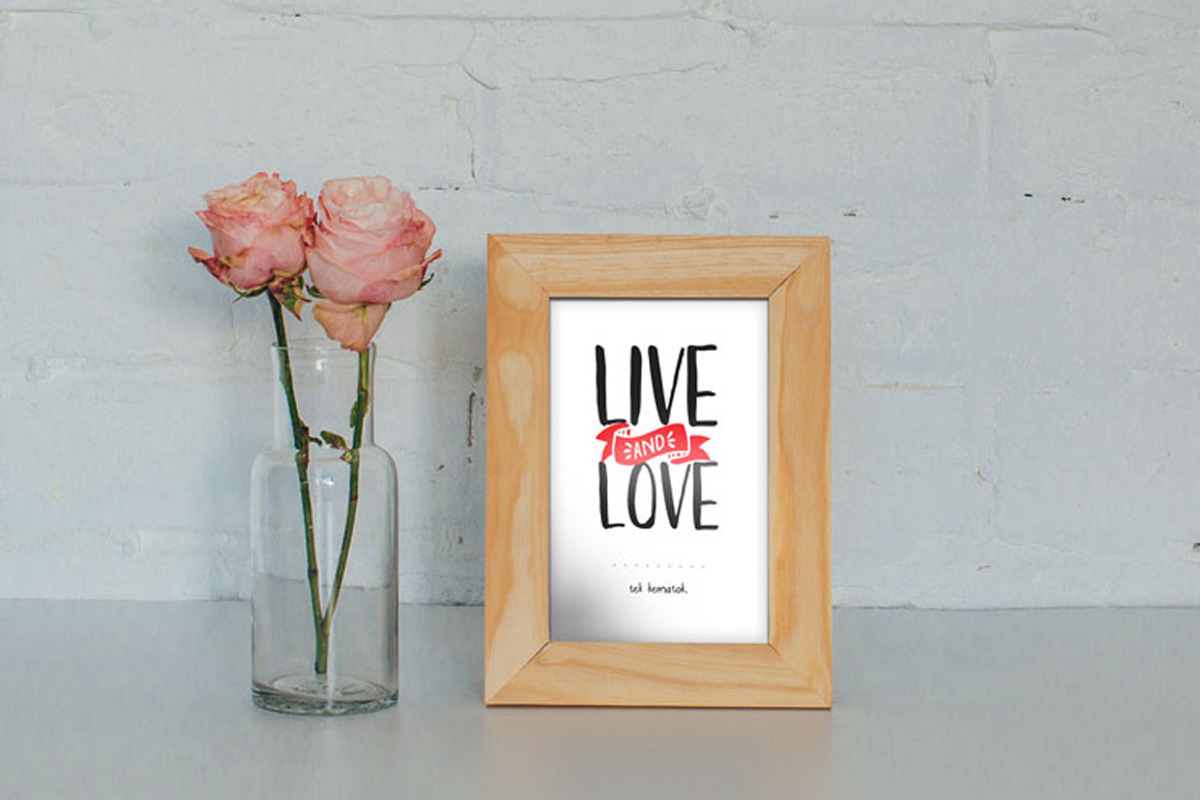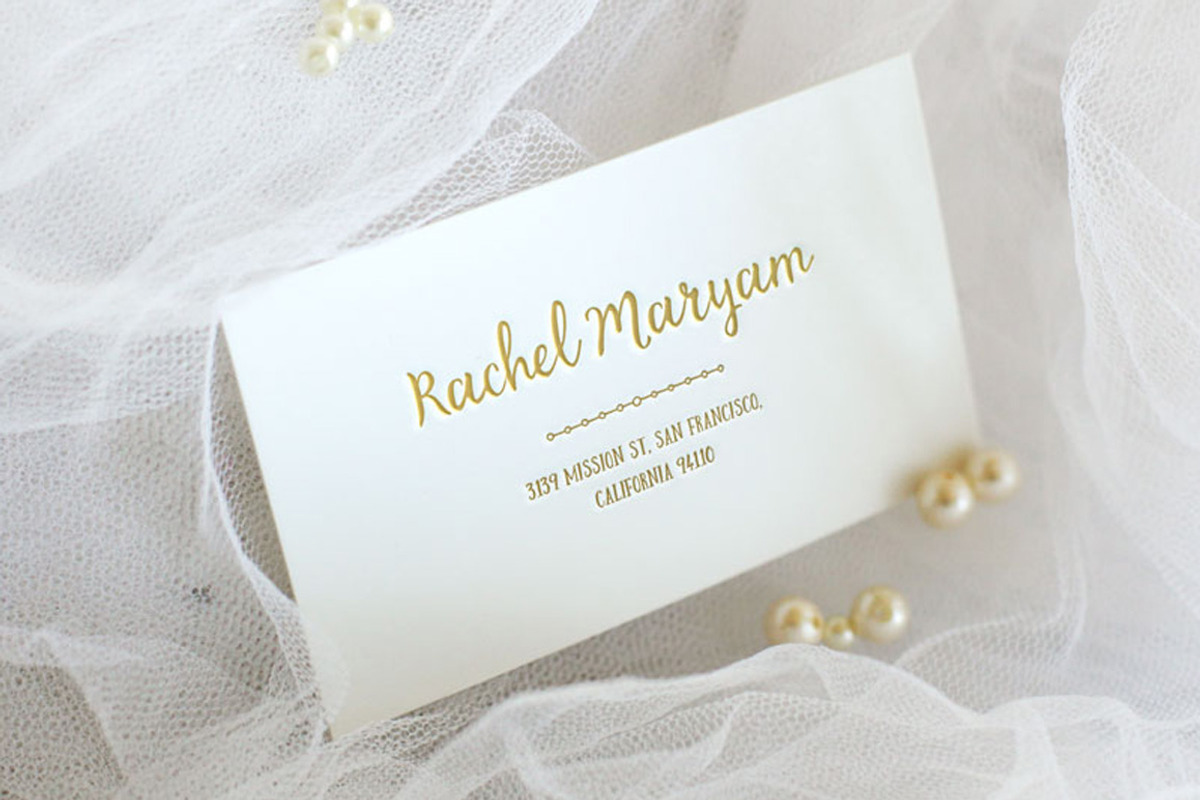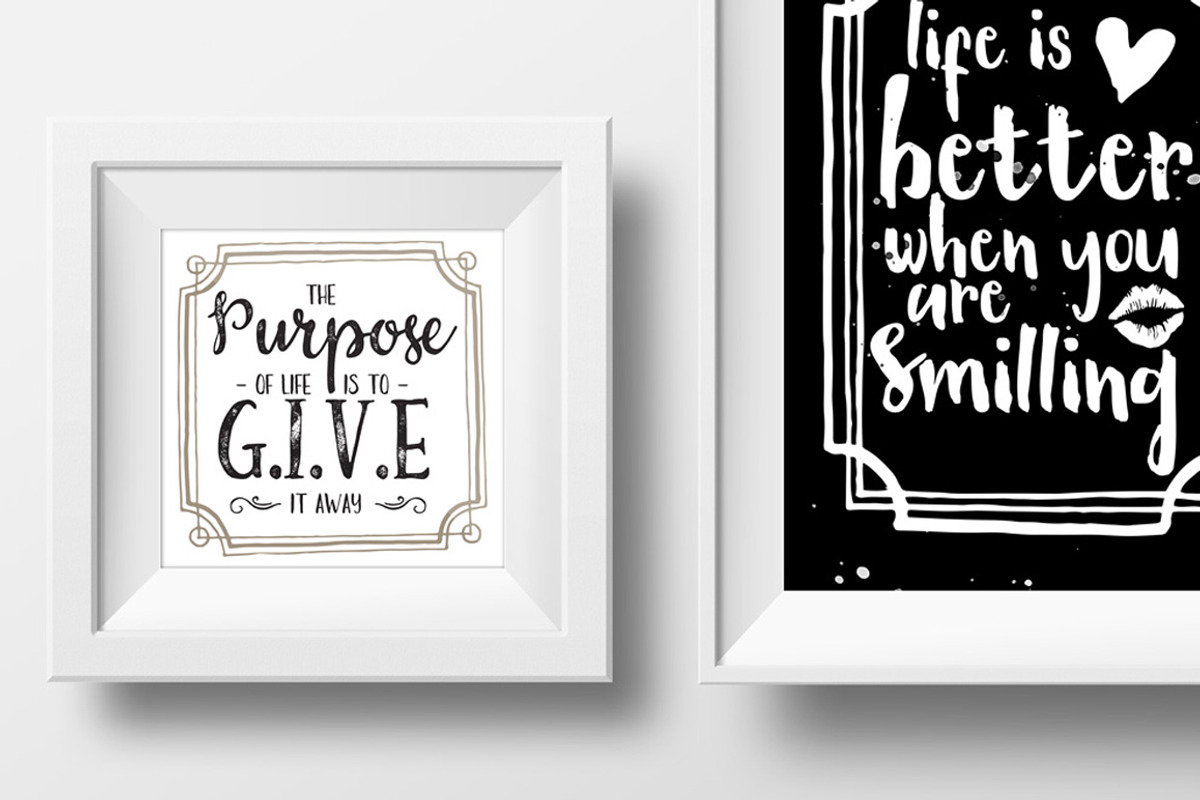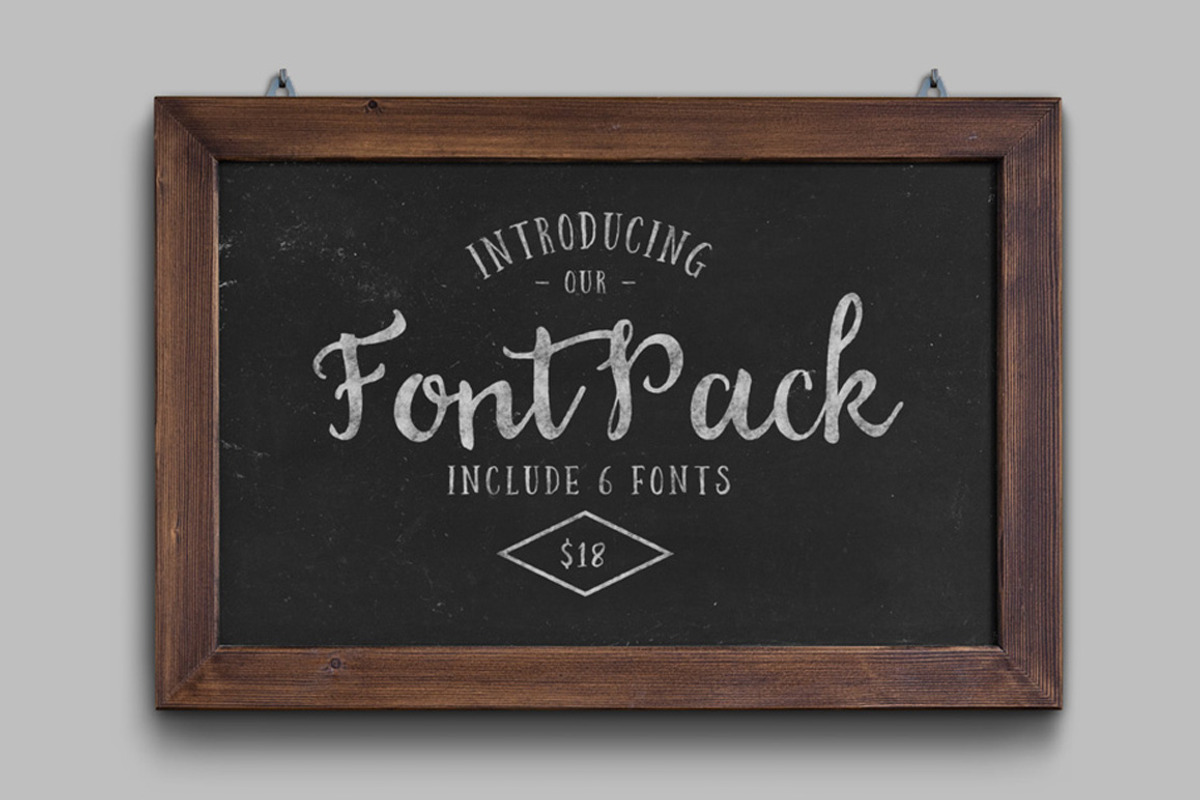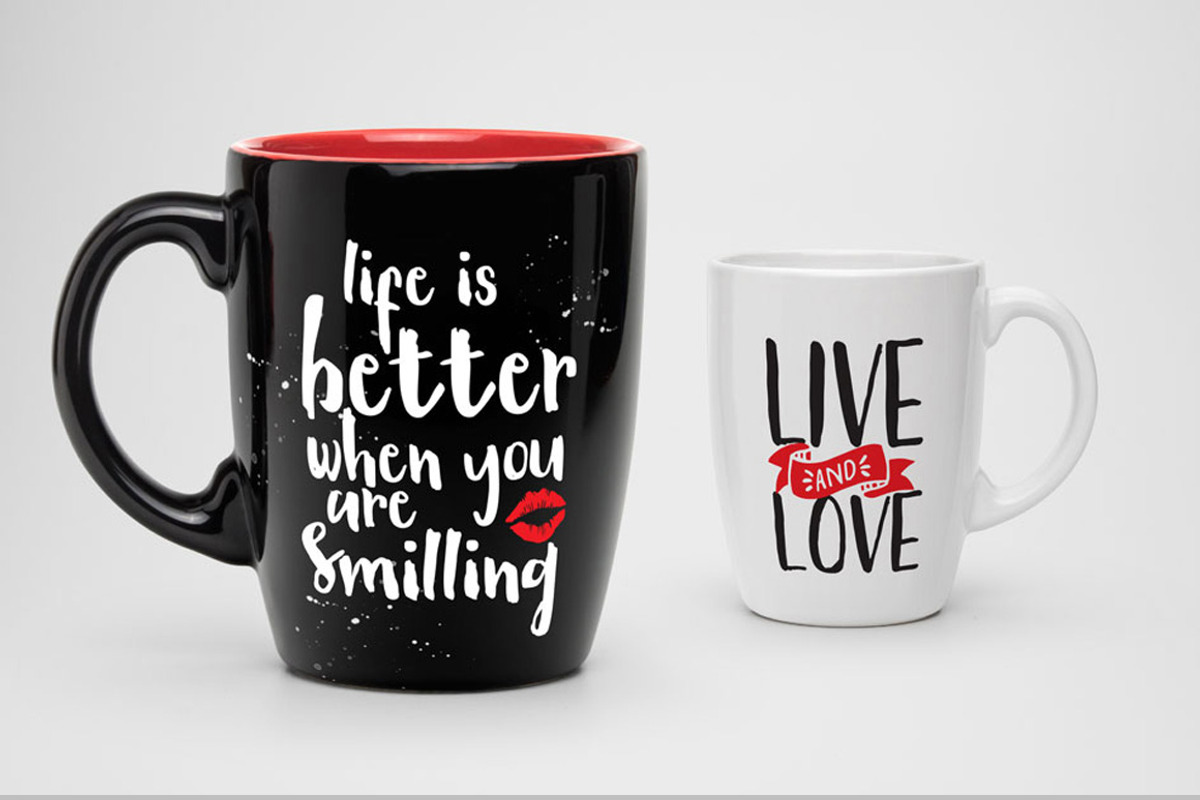
Font Pack
Font Pack by mysunday is a font selected for branding, posters, packaging, typography.
Why Font Pack is worth a look
Font Pack by mysunday fits naturally into Branding, posters, packaging, typography.